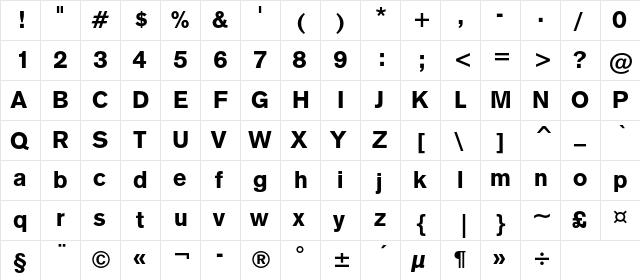
Gothic725BlackC BT Regular
Design Context for Gothic725BlackC BT Typeface
Gothic725BlackC BT has the quiet confidence of well-executed sans-serif typography: versatile, unobtrusive, and dependable at any size.
Font Pairing: Works well alongside a characterful serif or display font that can carry the expressive load while Gothic725BlackC BT handles the functional copy.
Pro Tip: Use Gothic725BlackC BT for UI labels, navigation, and short-form body copy where clean legibility is the priority.